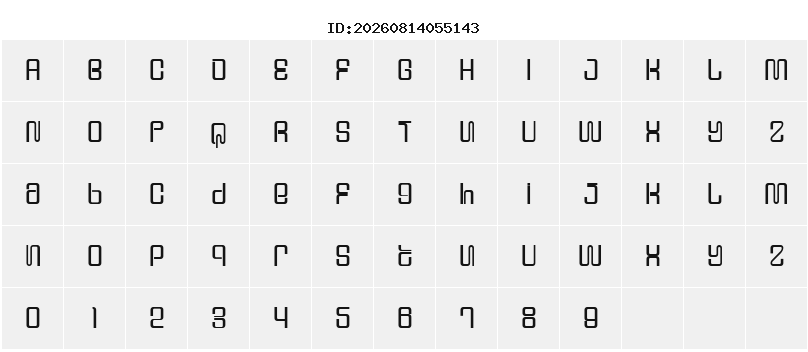
• Font Name: Supervixen
• Full Font Name: Supervixen
About Supervixen.ttf
Supervixen.ttf is a modern, elegant sans-serif font designed for ultimate readability and visual harmony. Perfect for branding, headlines, web design, and print materials.